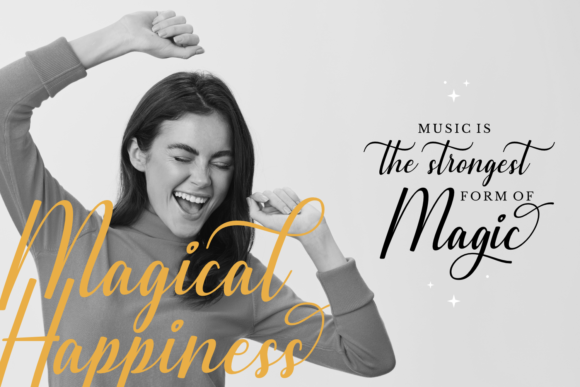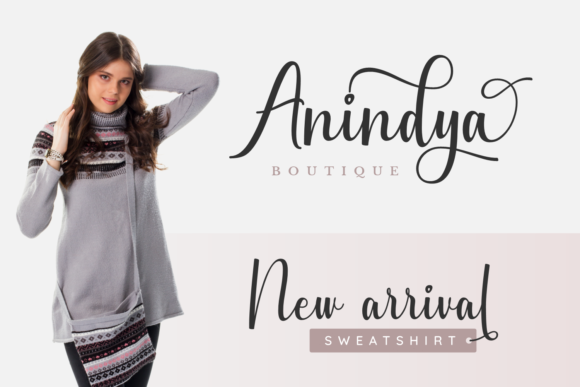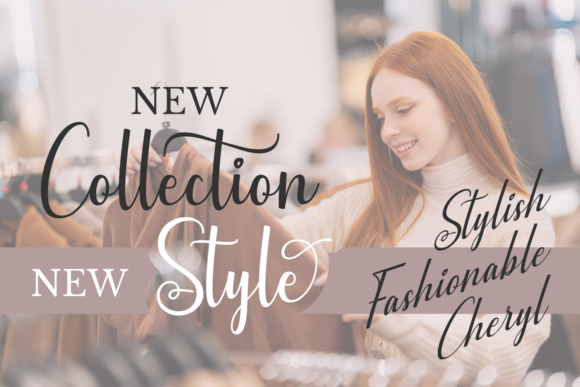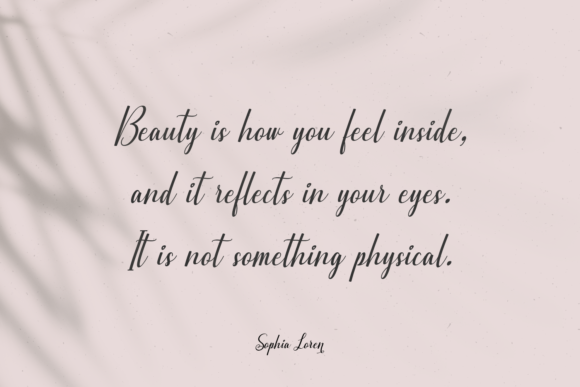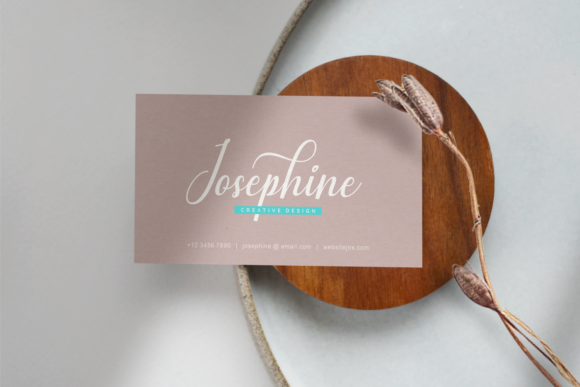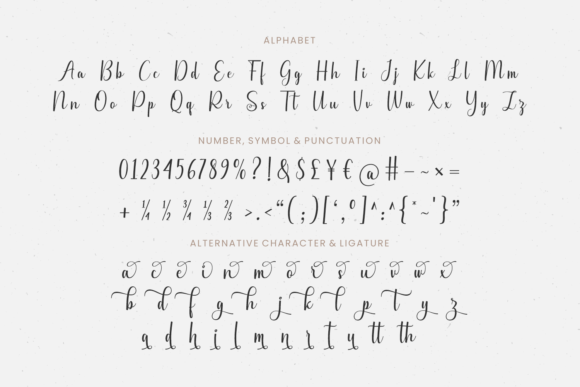
Introducing Dealane Font: Elevate Your Designs with Elegance and Sophistication
In the world of typography, a font can make or break a design. For designers and crafters looking to add a touch of luxury and refinement to their projects, Dealane Font is an exceptional choice. This elegant and sophisticated script font is designed to impress with its versatility, making it perfect for a wide range of applications.
What is Dealane Font?
Dealane Font is a beautifully crafted script font that exudes elegance and sophistication. Its intricate details and flowing lines make it an ideal choice for designs that require a high level of refinement. Whether you’re working on a business card, logo, watermark, product packaging, magazine, book, or any other project, Dealane Font is sure to make a lasting impression.
Key Features of Dealane Font
- Versatility: Dealane Font is incredibly versatile, making it suitable for a wide range of design applications. From formal events to everyday branding, this font can adapt to any style or theme.
- Elegant and Sophisticated: Dealane Font boasts an elegant and sophisticated design that is sure to elevate your projects. Its refined lines and intricate details make it perfect for designs that require a touch of luxury.
- Easy to Read: Despite its intricate design, Dealane Font is surprisingly easy to read. This makes it an excellent choice for body text, headings, and titles.
- High-Quality: Dealane Font is a high-quality font that is designed to deliver exceptional results. Its crisp lines and precise details ensure that your designs look professional and polished.
Uses of Dealane Font
Dealane Font is an incredibly versatile font that can be used in a variety of design applications. Here are some of the most popular uses of this elegant script font:
- Business Cards: Add a touch of sophistication to your business cards with Dealane Font. Its elegant design makes it perfect for professional branding.
- Logos: Create a lasting impression with Dealane Font. Its unique design makes it ideal for logos that require a high level of refinement.
- Product Packaging: Elevate your product packaging with Dealane Font. Its elegant design makes it perfect for luxury brands and high-end products.
- Magazines and Books: Add a touch of elegance to your publications with Dealane Font. Its refined design makes it perfect for headings, titles, and body text.
- Watermarks: Create beautiful watermarks with Dealane Font. Its intricate design makes it perfect for adding a subtle touch of sophistication to your designs.
Tips for Using Dealane Font
To get the most out of Dealane Font, here are some tips to keep in mind:
- Pair it with a Sans-Serif Font: Dealane Font pairs beautifully with sans-serif fonts. Try pairing it with a font like Arial or Helvetica for a striking contrast.
- Use it for Headings and Titles: Dealane Font is perfect for headings and titles. Use it to add a touch of elegance to your designs.
- Experiment with Colors: Dealane Font looks great in a variety of colors. Experiment with different colors to find the perfect match for your design.
- Pay Attention to Kerning: Dealane Font requires careful kerning to ensure that it looks its best. Take the time to adjust the kerning to achieve a polished look.
Dealane Font is an exceptional script font that is sure to elevate your designs with its elegance and sophistication. Its versatility, refined design, and ease of use make it perfect for a wide range of applications. Whether you’re a designer or crafter, Dealane Font is an excellent choice for anyone looking to add a touch of luxury to their projects.